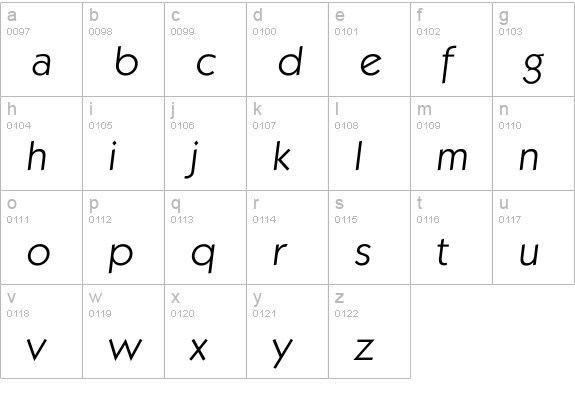
Ikabel Light is a refined, elegant variant in the Ikabel typeface family \xE2\x80\x94 well suited to elegant body text, refined sub-headings, and luxury branding.
Introducing Ikabel Light, a stunningly elegant font that effortlessly blends sophistication with modernity. Designed with a keen eye for detail, this font is a true masterpiece, perfect for adding a touch of refinement to any project. Ikabel Light exudes an air of gracefulness and poise, making it an ideal choice for a wide range of design purposes. Whether you're creating captivating logos, eye-catching headlines, or stylish branding materials, this font will effortlessly elevate your work to new heights. With its sleek and slender letterforms, Ikabel Light manages to strike the perfect balance between minimalism and elegance. Its harmonious curves and clean lines give it a timeless appeal, ensuring that it will remain a classic choice for years to come. What sets Ikabel Light apart is not only its exceptional design but also the fact that it is available absolutely free. Yes, you read that right! This incredible font is freely available to download at FontsMarket.com, making it accessible to designers and creatives from all walks of life. FontsMarket.com, a trusted source for high-quality fonts, proudly offers Ikabel Light as a gift to the design community. By providing this font for free, they aim to empower designers to bring their visions to life without any barriers. So, why wait? Embrace the beauty and versatility of Ikabel Light and let it become your go-to font for all your design needs. Download it today from FontsMarket.com and discover the limitless possibilities that this remarkable font has to offer.